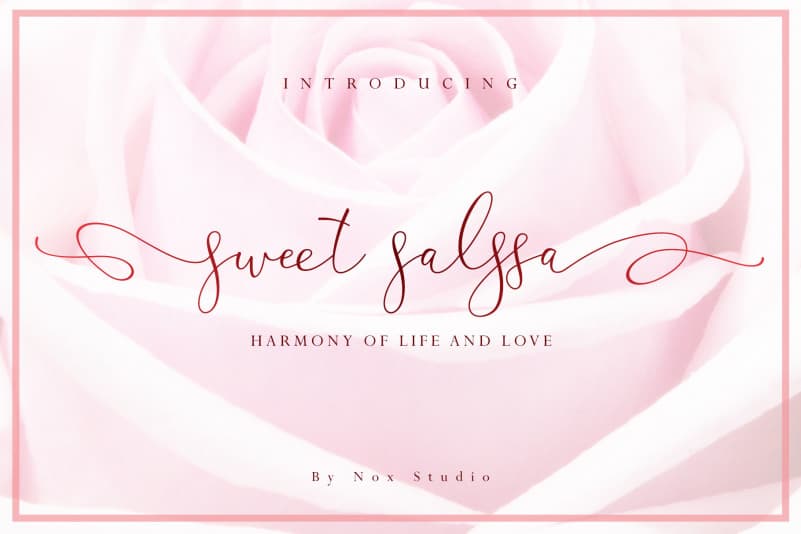
Sweet Salssa Font
Sweet Salssa Calligraphy Font is a beautiful calligraphy typeface created by Nox Studio with an irregular baseline.
For those of you who are need a touch of love and modernity for your designs or branding, it can be used for various purposes such as headings, wedding, invitation, signature, logos, branding, t-shirt, letterhead, signage, lable, news, posters, badges etc.